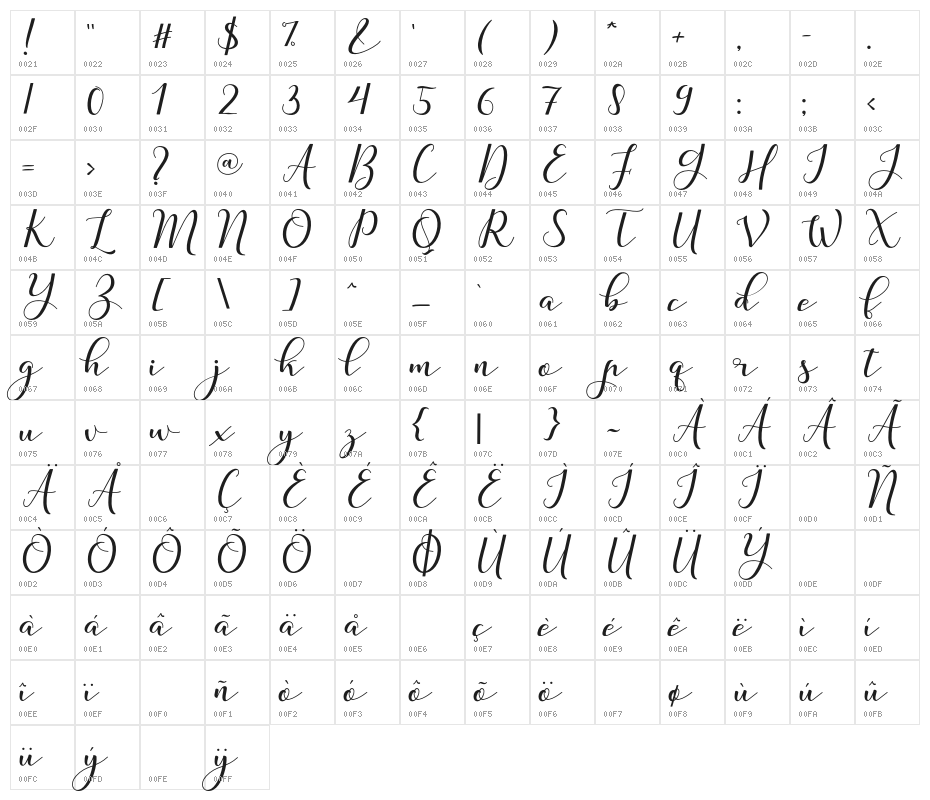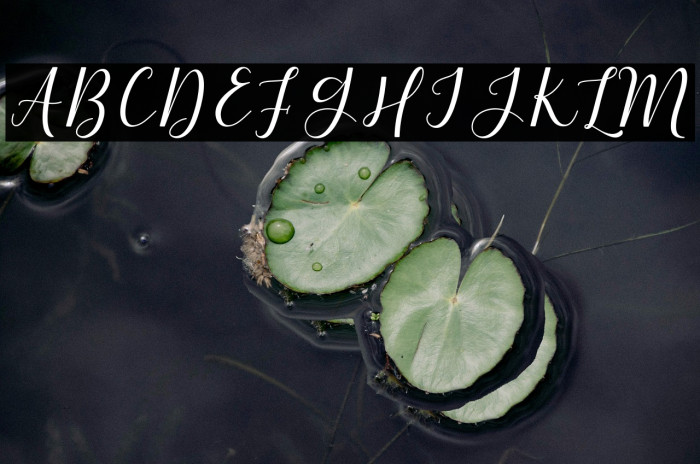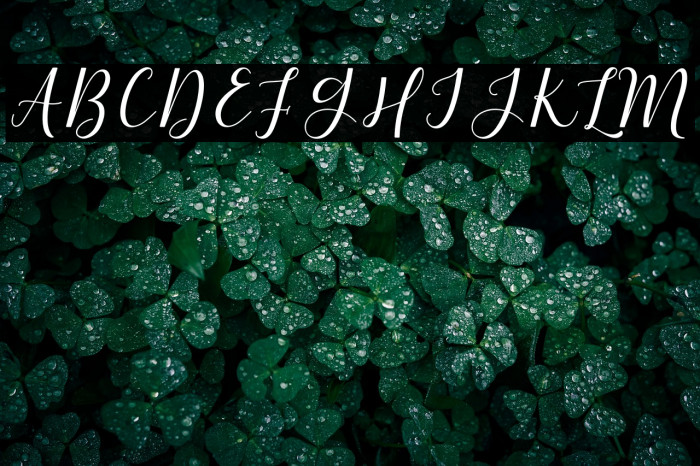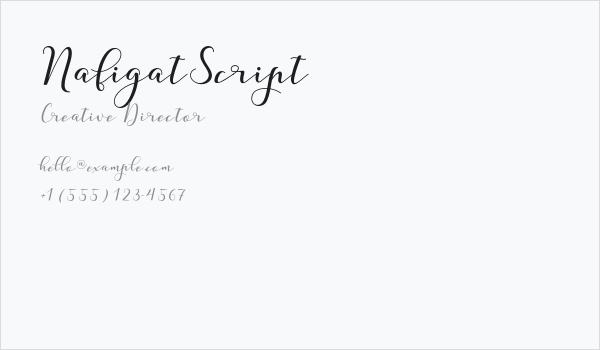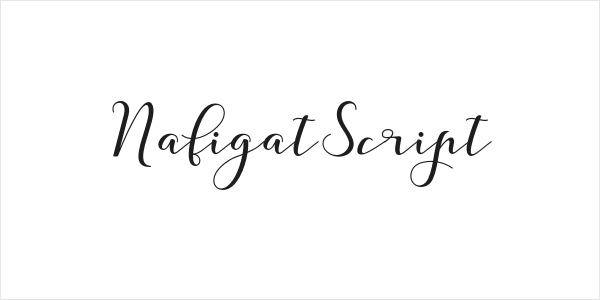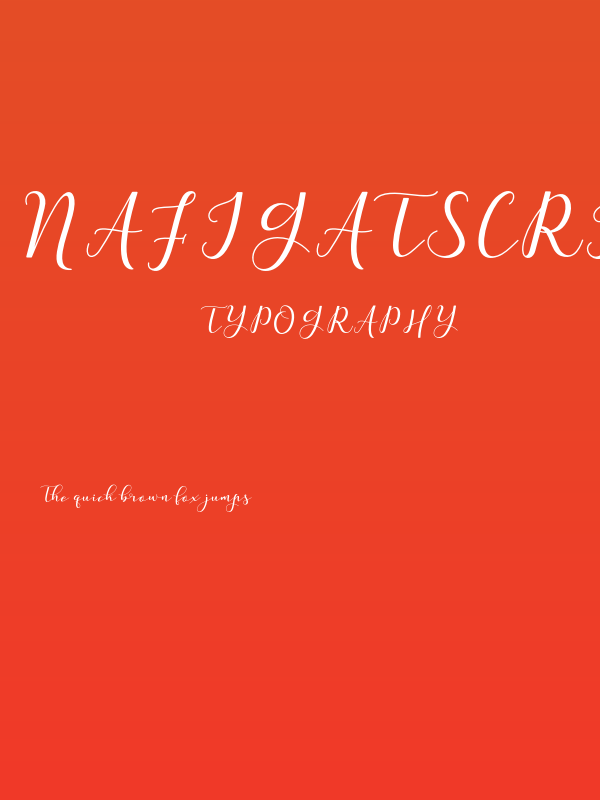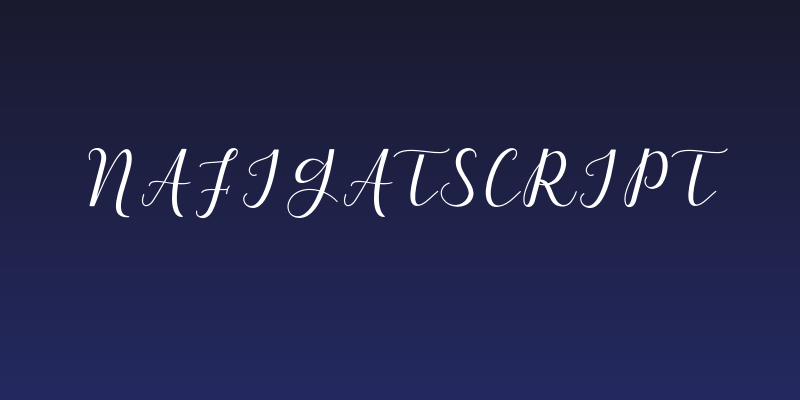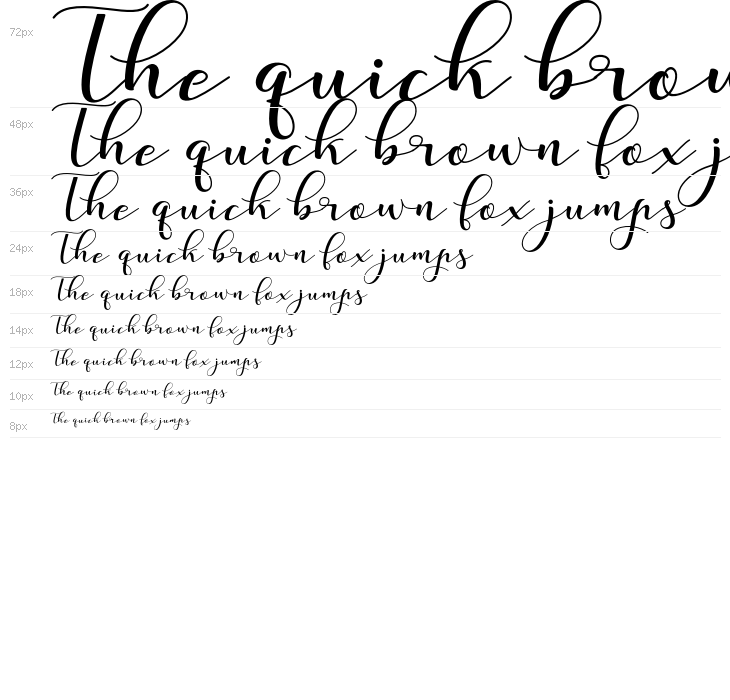
NafigatScript Font
| Gesamtstil | Elegant |
| Anwendungsfall | Logos, Invitations, Branding |
| Vorgeschlagene Projekte | Ideal for wedding invitations, elegant branding, greeting cards, and upscale packaging. |